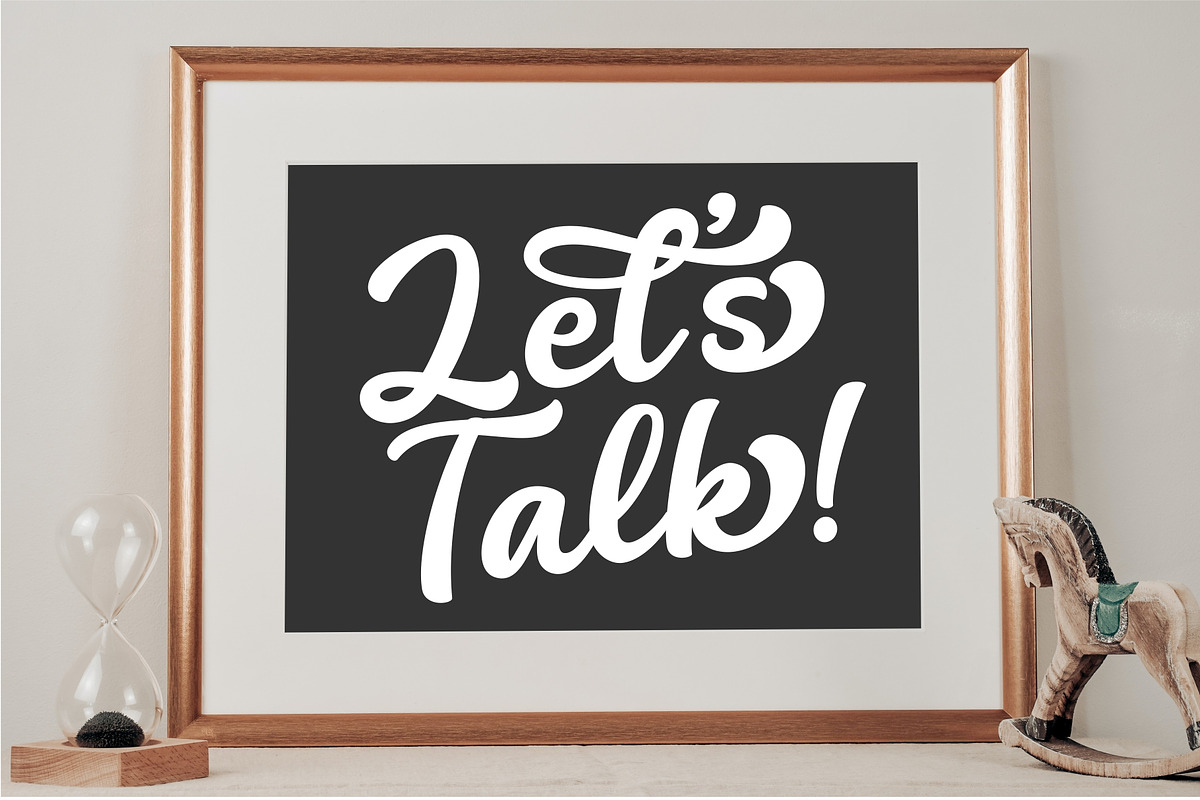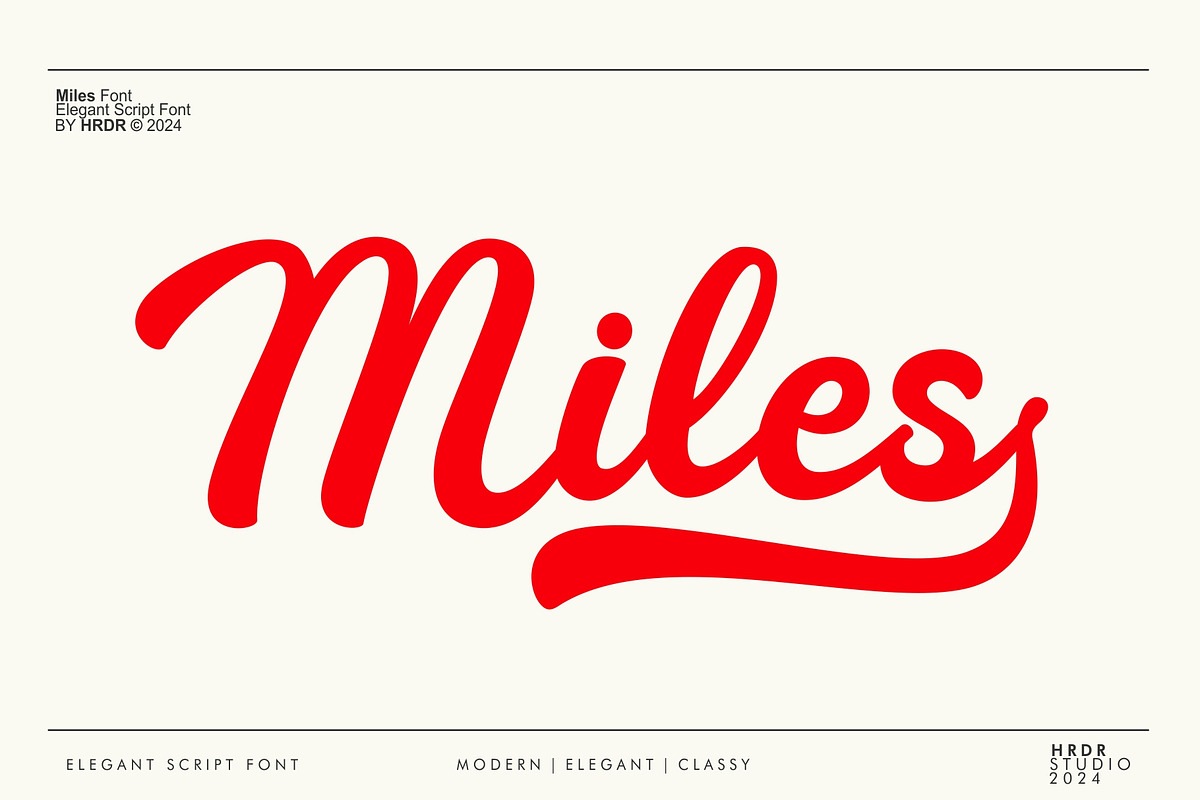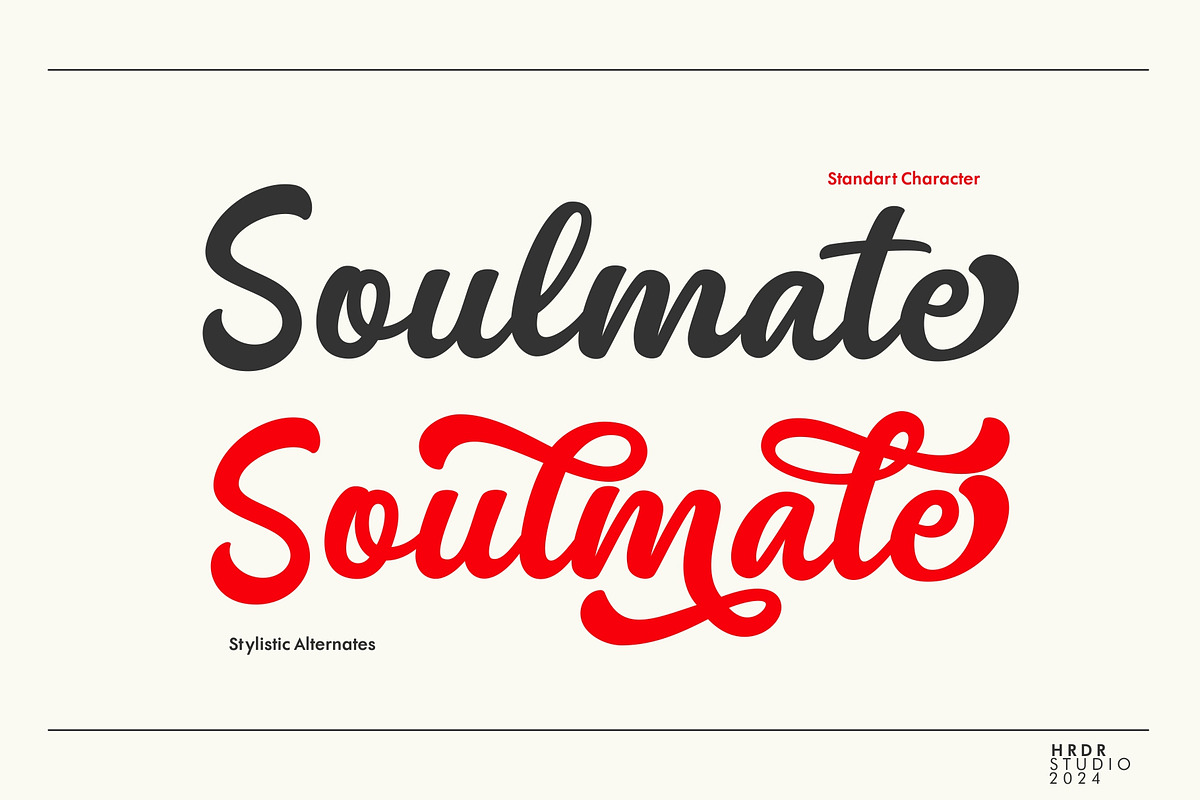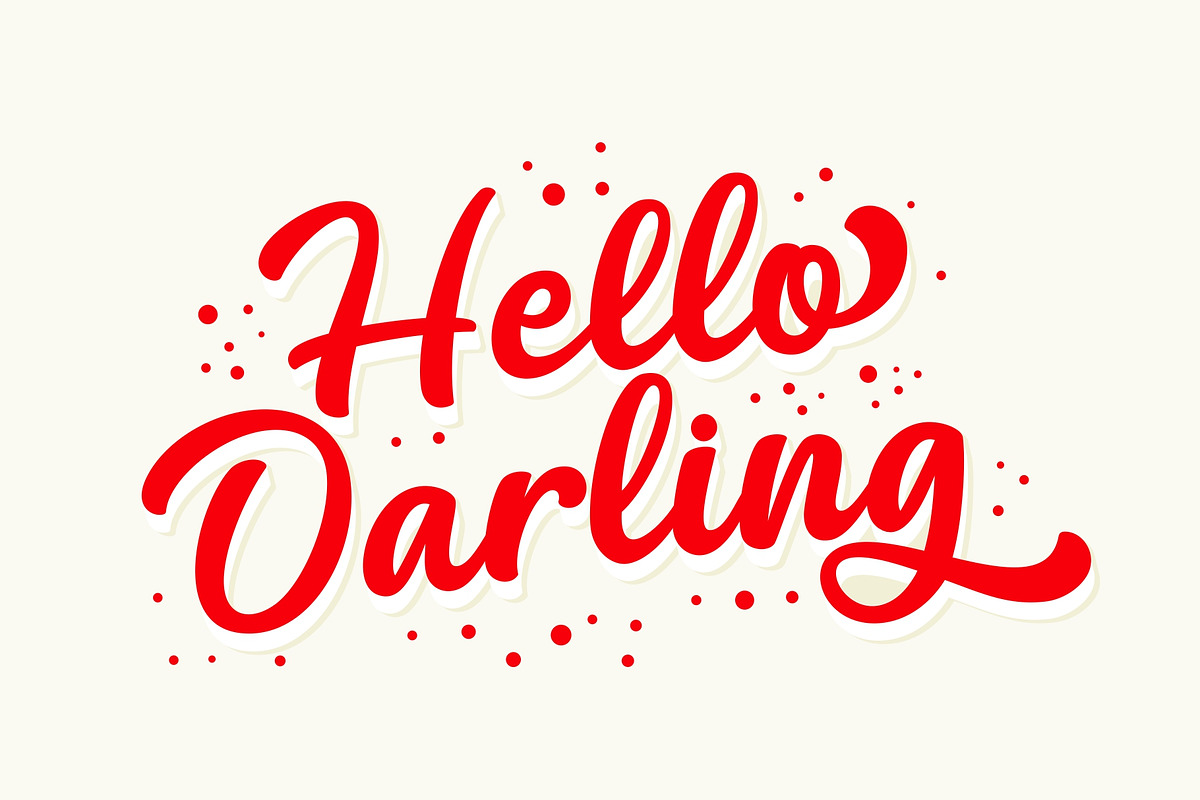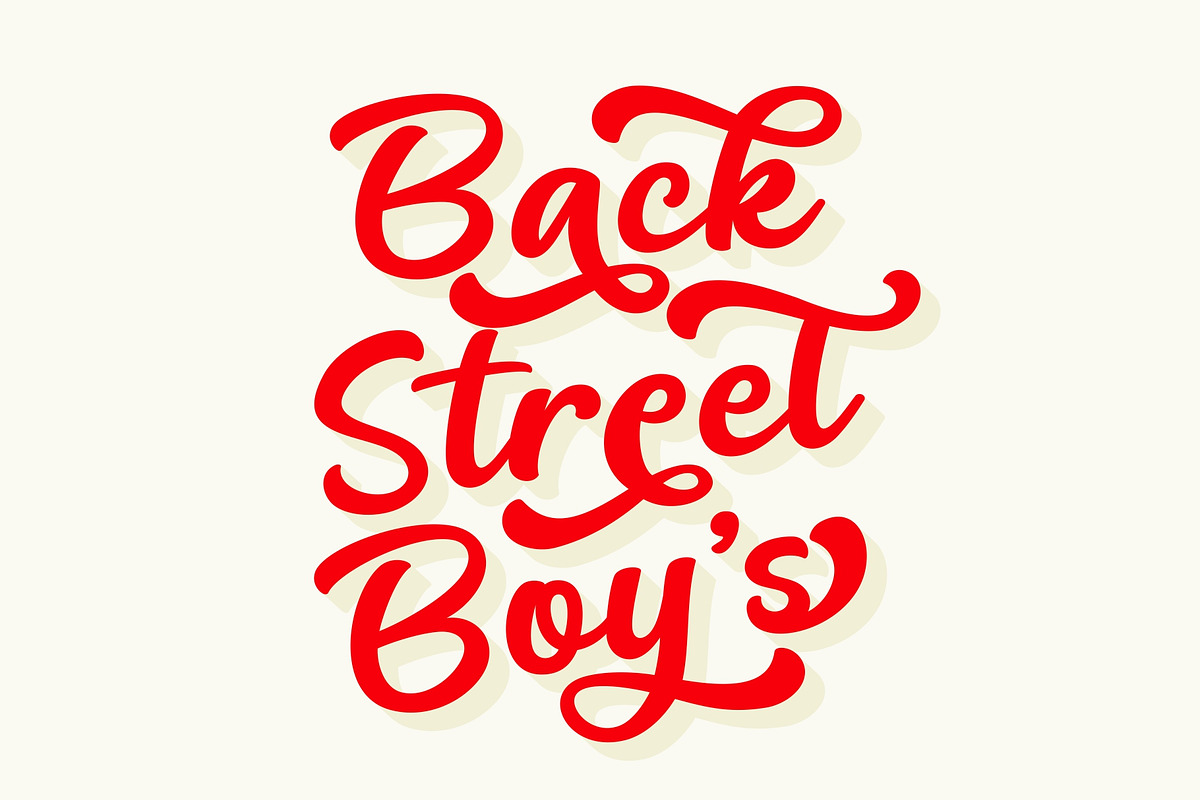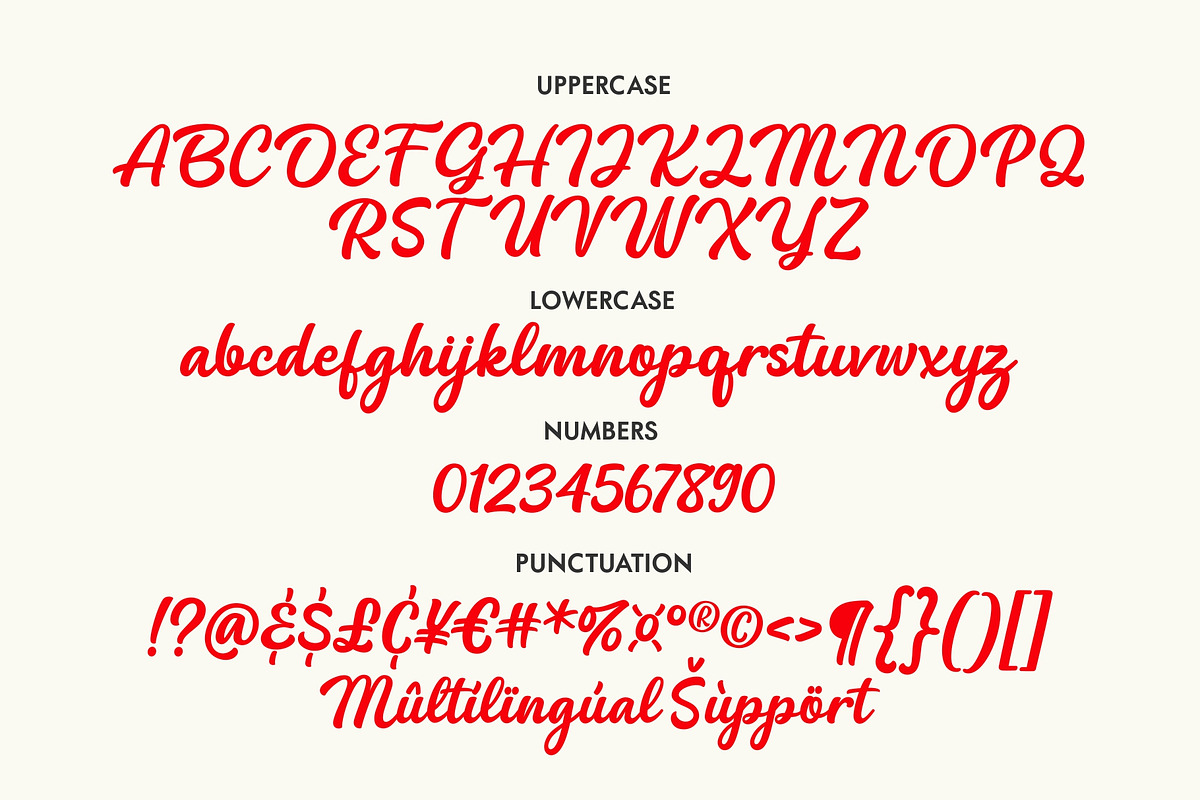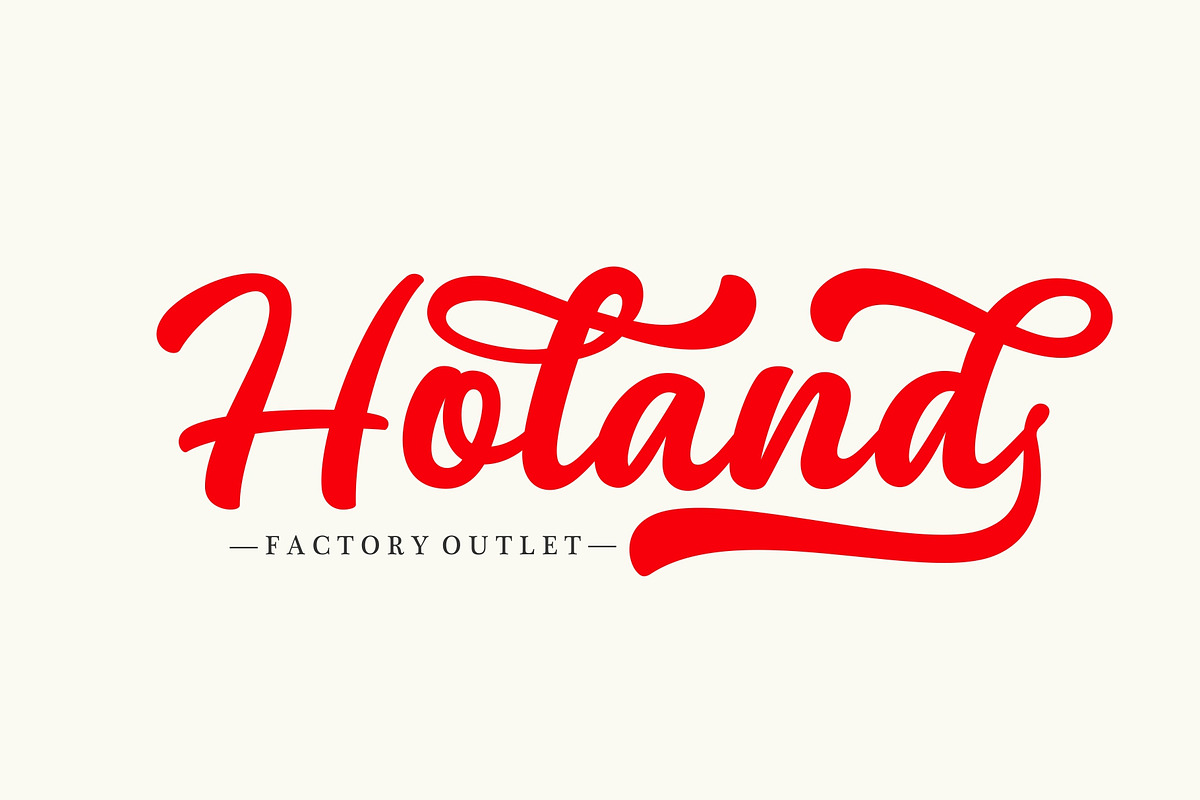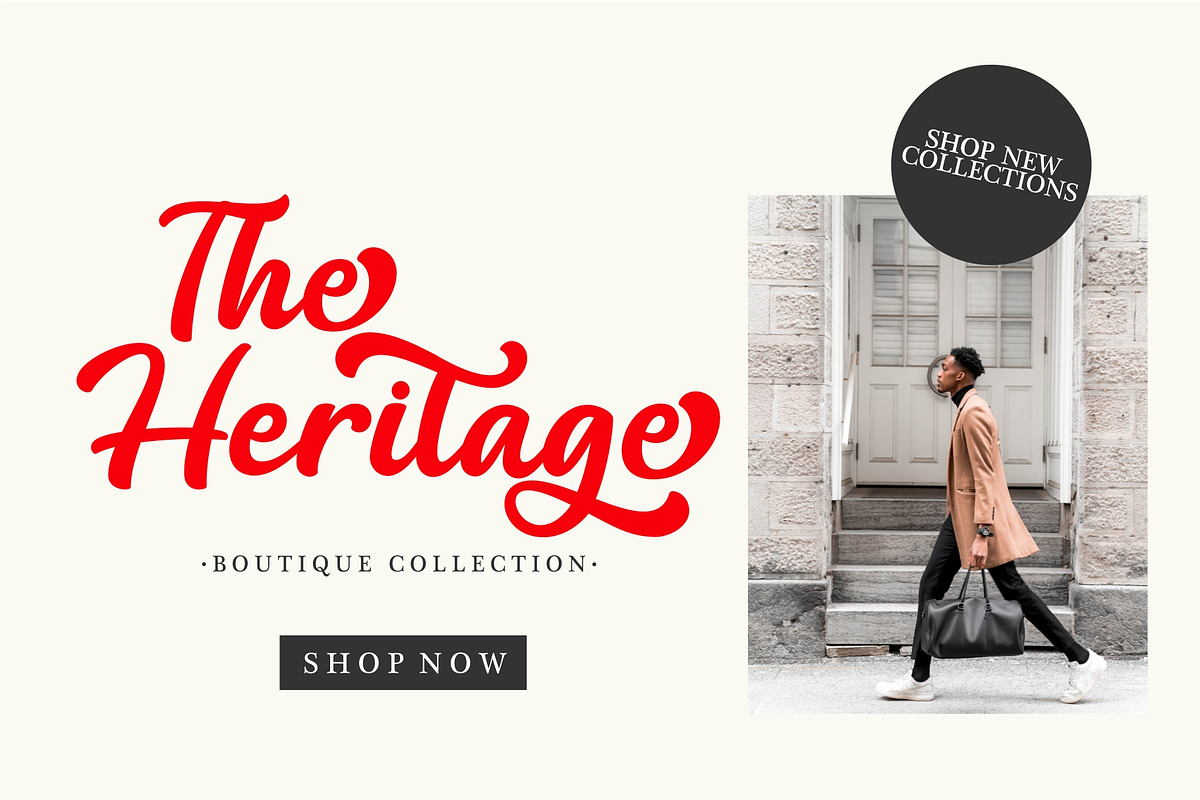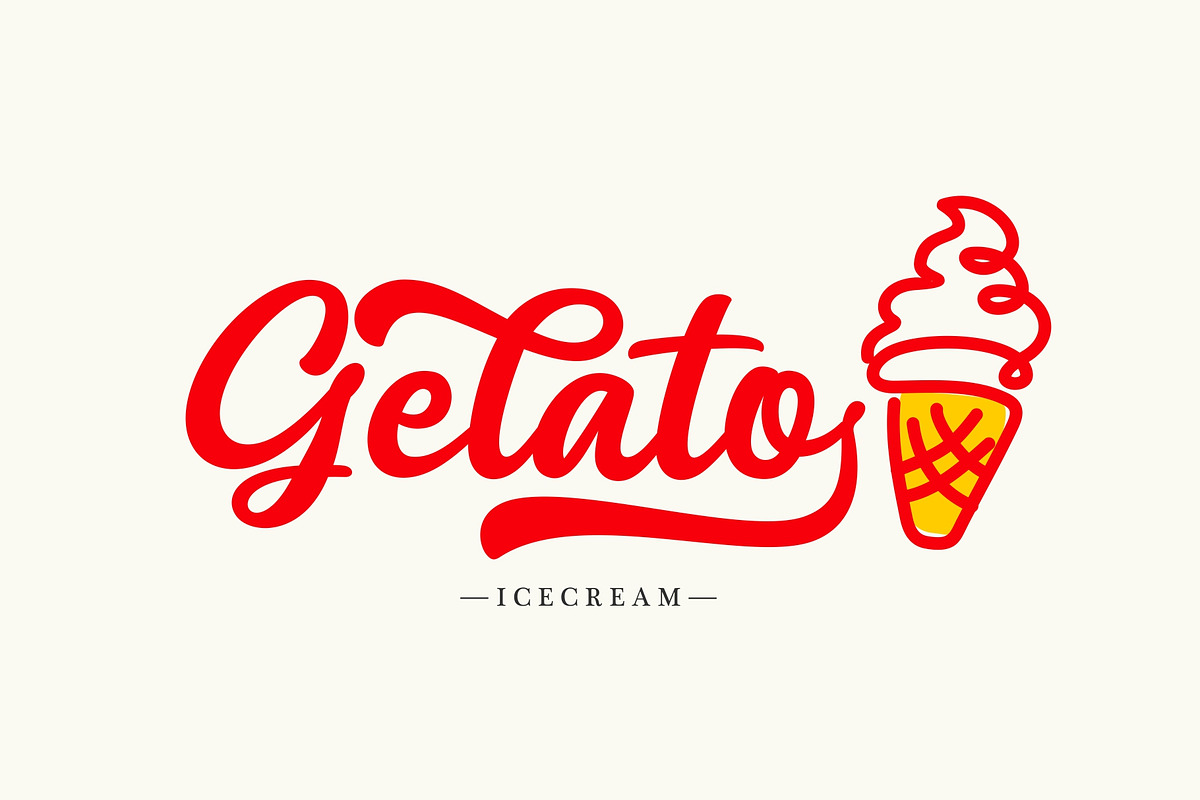
Miles - Elegant Script Font
Miles Font is a Elegant Script font. It's perfect for branding, wedding invitations, photography, Neon Sign, bloggers, logos, greeting cards, Logo, Quotes and more.
- numeric & Multilingual support
- Stylistic Alternates with ( Ss01,Ss02,Ss03,Ss04,Ss05, Swash and Ligatures )